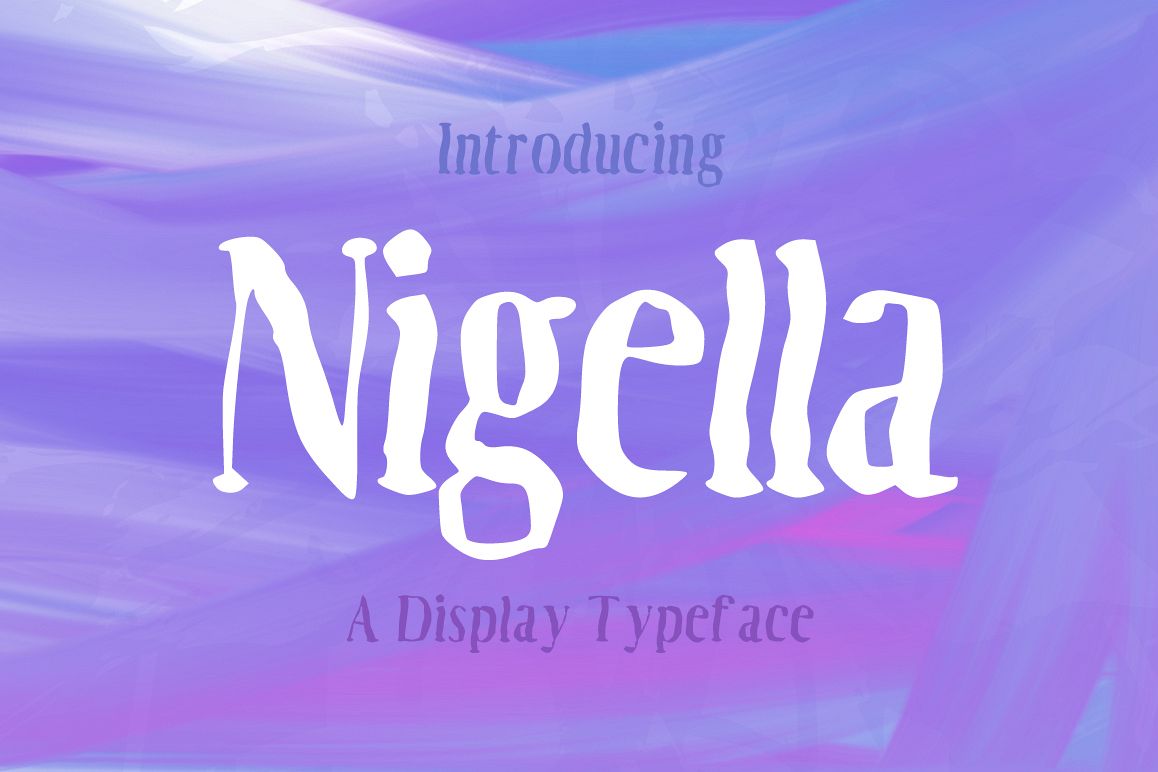
Introducing Nigella!Nigella is a fresh & modern font.
Nigella is perfectly suited to stationery, logos, t-shirt, paper, print design, website header, photo frame, flyer, music cover, poster, image slider and much more.
Features:- Uppercase
- Numerals